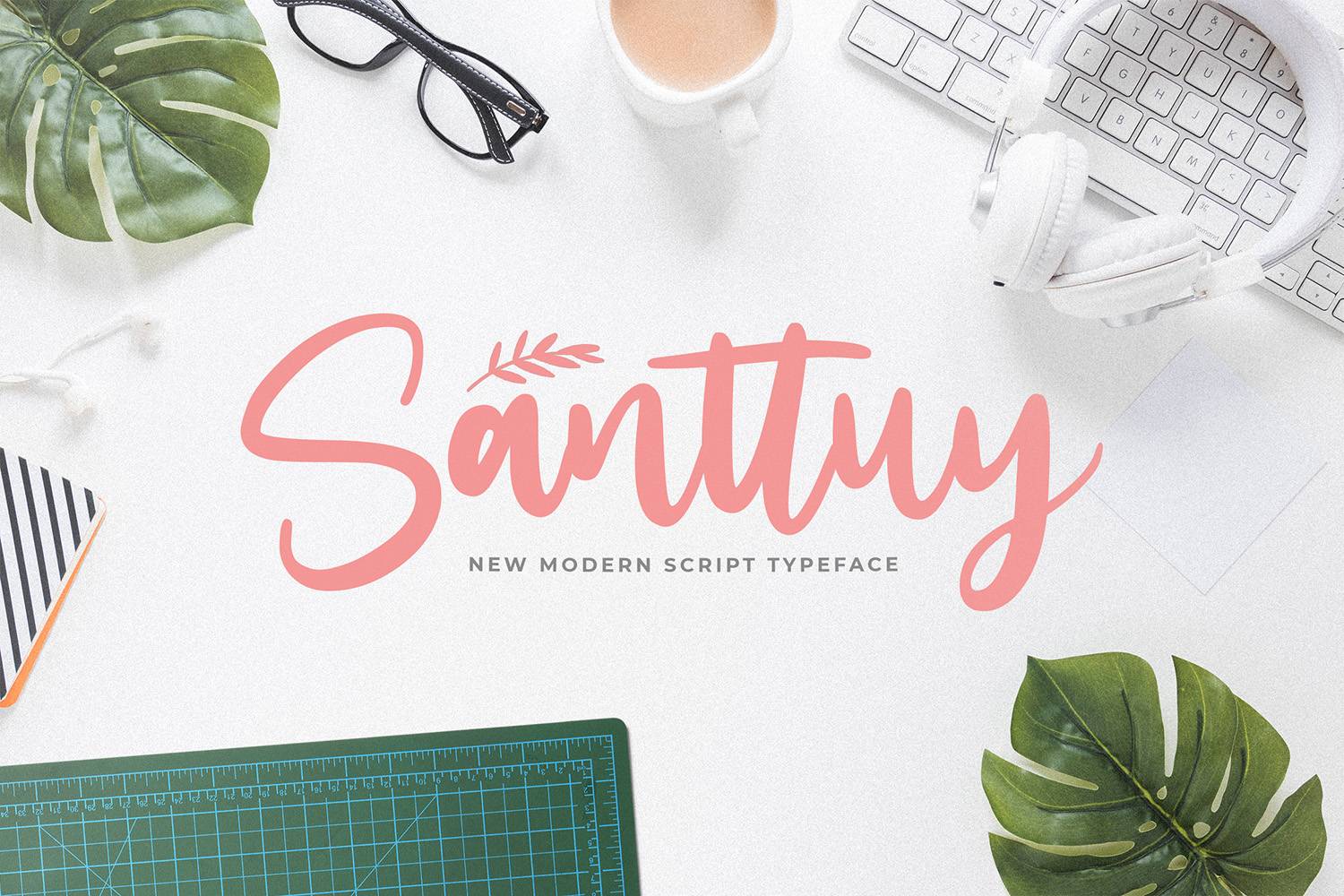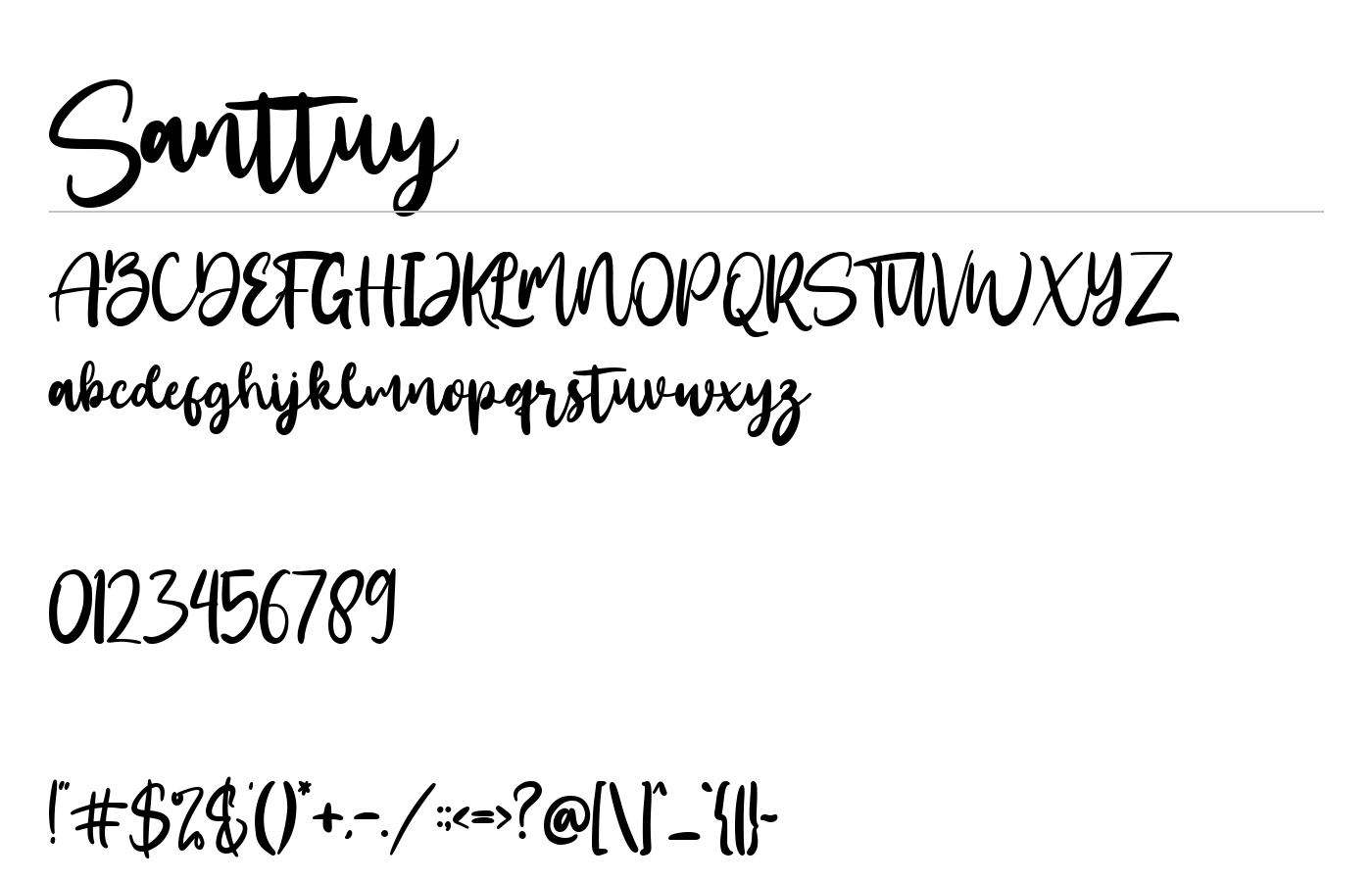
Santtuy is a playful and casual script font with a lively, hand-drawn feel that blends smooth, rounded strokes with an inviting rhythm. Its moderate weight and natural flow make it ideal for adding a personal, friendly touch to logos, invitations, or social media graphics, while maintaining clear readability and charm. This font works well for creative projects that seek warmth and approachability without sacrificing style.
Santtuy Font